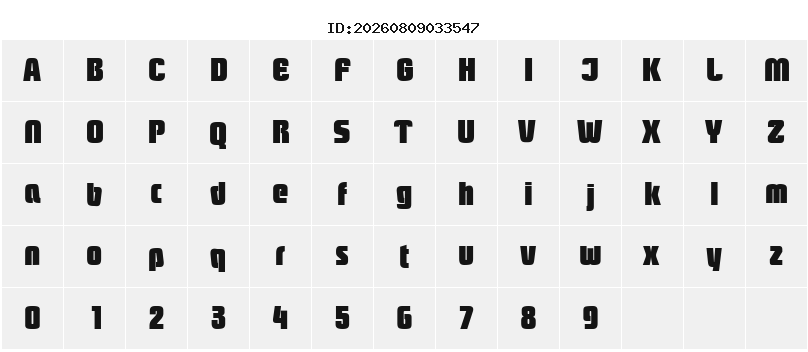
• Font Name: PhrasticExtraBold
• Full Font Name: PhrasticExtraBold Bold
About PhrasticExtraBold.ttf
PhrasticExtraBold.ttf is a modern, elegant sans-serif font designed for ultimate readability and visual harmony. Perfect for branding, headlines, web design, and print materials.